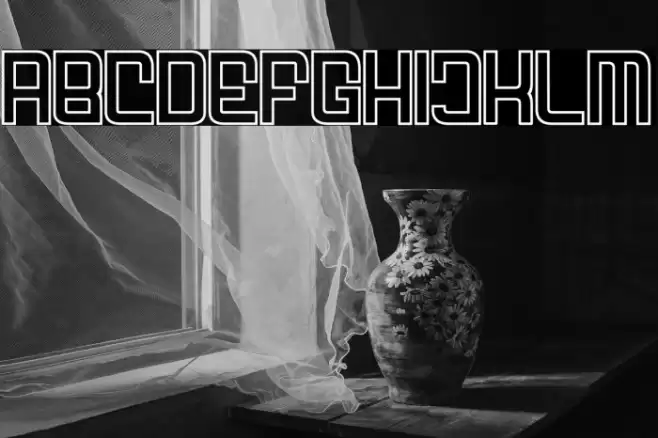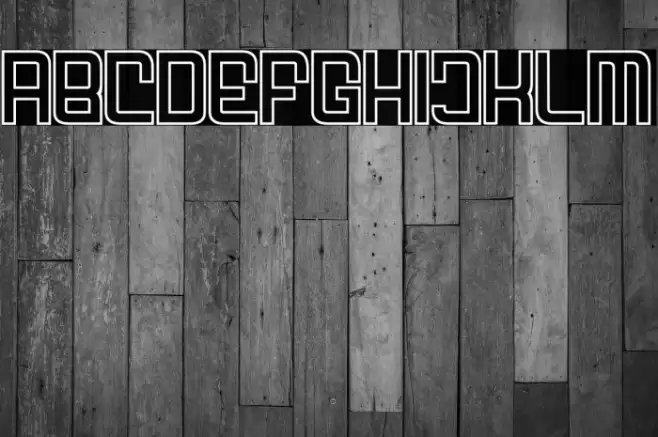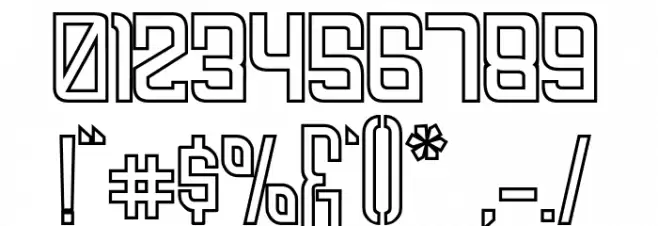
FODECUMBERS THICK HOLOW Font
FODECUMBERS THICK HOLOW Description
This font features a bold, geometric design with a hollow interior, creating a striking and modern appearance. The characters are constructed with thick, uniform lines that form a rectangular, boxy shape, emphasizing a futuristic and digital aesthetic. The uppercase and lowercase letters maintain consistent proportions, while the numerals and special characters follow the same design principles, ensuring a cohesive look across all elements. The font's hollow nature allows for creative use of background colors or textures, making it versatile for various design applications.
A bold, geometric font with a hollow interior and a modern, digital look from Uncategorized fonts.
- Proposed Projects: Ideal for tech-themed projects, digital artwork, futuristic branding, and eye-catching headlines.